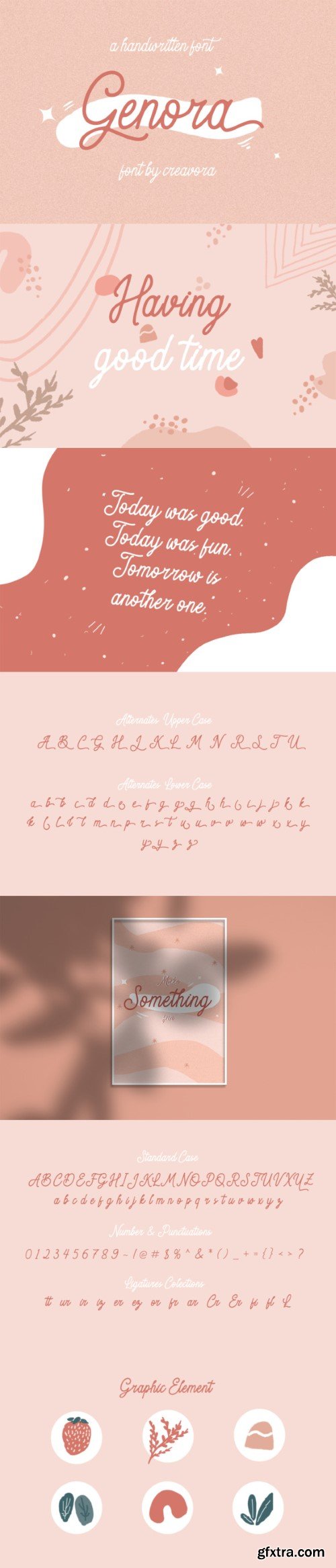
Genora is an exquisite and classic script font with a vintage charm. Its elegance shines through when used in various applications such as wedding invitations, expressions of gratitude, inspirational quotes, heartfelt greetings, distinctive logos, professional business cards, and any design that requires a personalized flair.